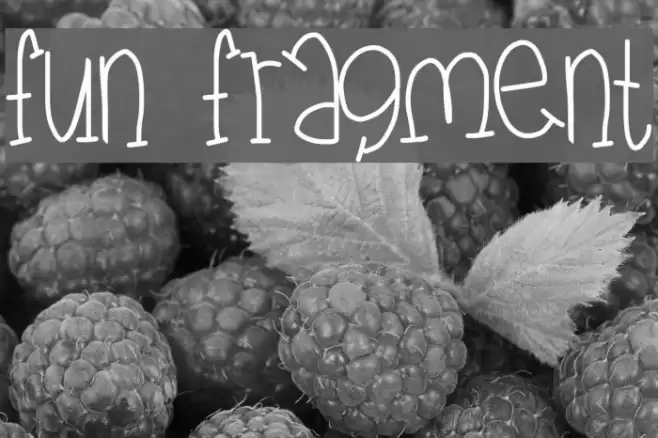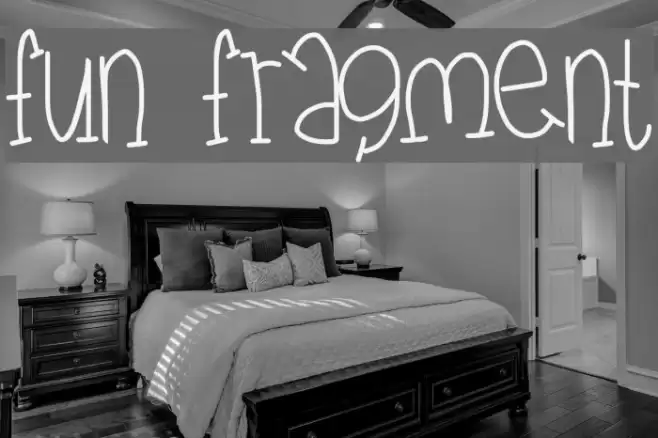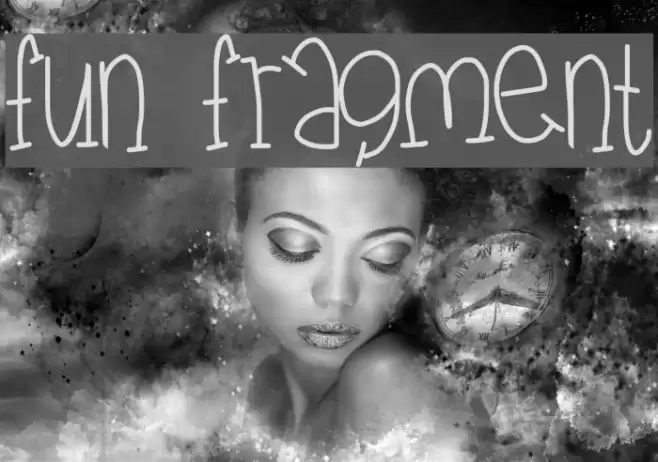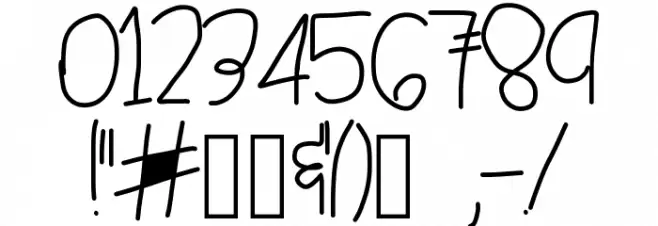
fun fragment Font
fun fragment Description
This playful and whimsical font features a handwritten style with a casual, relaxed feel. The characters are slightly irregular, giving them a charming and approachable appearance. The strokes are consistent in thickness, contributing to a cohesive look across all letters and numbers. The font includes both uppercase and lowercase letters, numbers, and a variety of special characters. Its informal style makes it suitable for creative projects that require a personal touch. The overall design is friendly and inviting, perfect for conveying a sense of fun and creativity.
A playful, handwritten font with a whimsical and casual style from Uncategorized fonts.
- Proposed Projects: Ideal for children's books, greeting cards, playful branding, and DIY projects.
- Use Case: Headlines, Logos, Creative projects